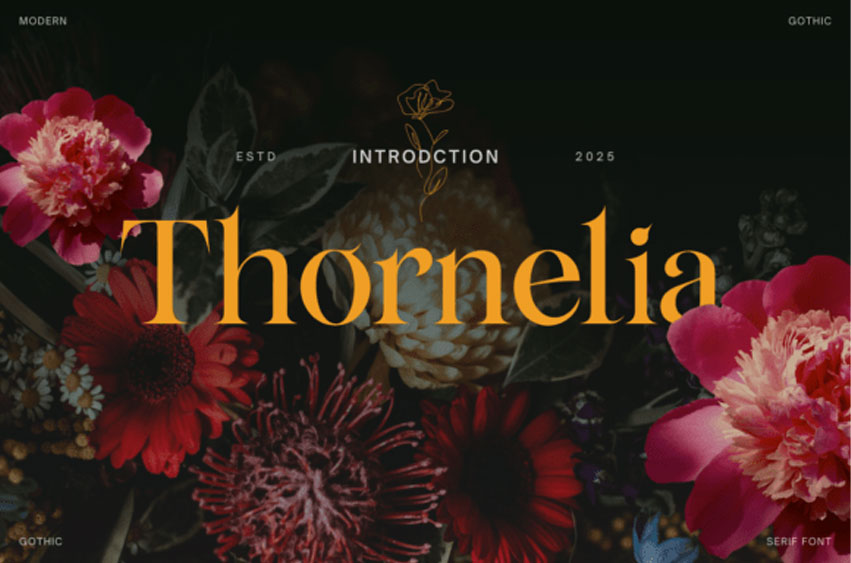
Thornelia Font is a go-to modern gothic serif font that masterfully blends vintage elegance with a hint of contemporary style. Thornelia’s high-contrast design captures and holds attention, radiating charm in every curve, edge, and ligature it offers. This versatile font is designed to be a powerful tool in your design arsenal, infusing every word with an assertive, editorial personality.
Dabble in a world where romantic gothic flair meets modern sophistication with Thornelia. Every curve of this font follows a melodious rhythm, perfect for fashion branding, album cover artistry, or bringing life to inspirational quotes. Thornelia’s poetic presence, layered in drama and grace, is a game-changer for title headings, magazine layouts, product packaging, and wedding design. This font is your secret weapon for any creative project that craves a touch of flair and drama.
Thornelia is perfect for a broad range of applications. It enhances branding and logo design, channels drama and elegance in editorial layouts and lookbooks, gives wedding stationery a romantic touch, and enables Instagram quotes and visual stories to stand out.
Elevate your designs with Thornelia, a font exemplifying timeless charm and audacious character. Let your words take center stage, blossoming with the refined aura of Thornelia – bold, beautiful, and indelibly authentic.